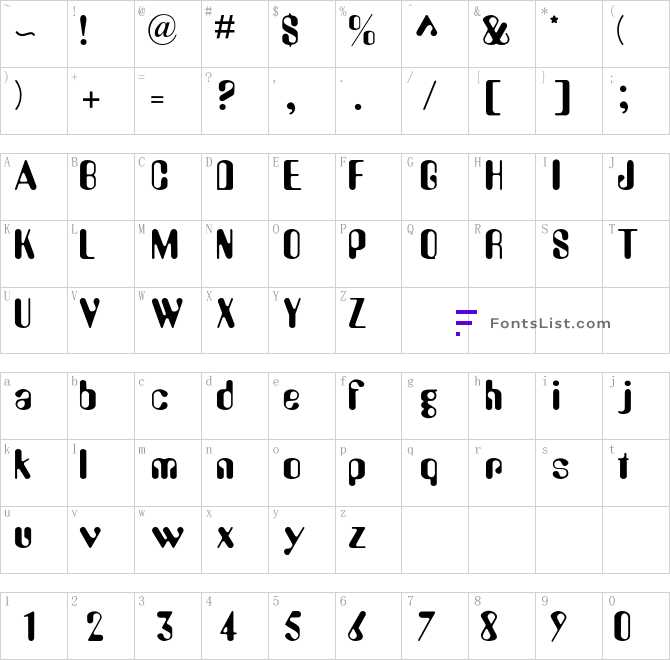
- Font Name:Asimov
Asimov.ttf is a very beautiful artistic font, Asimov.ttf is widely used in the design and printing of various books and pictures,Asimov.ttf has a strong visual impact,Asimov.ttf is a commonly used font in newspapers, magazines and books, and is used in posters, e-commerce Poster design, store design, logo design, font design and other fields.Asimov.